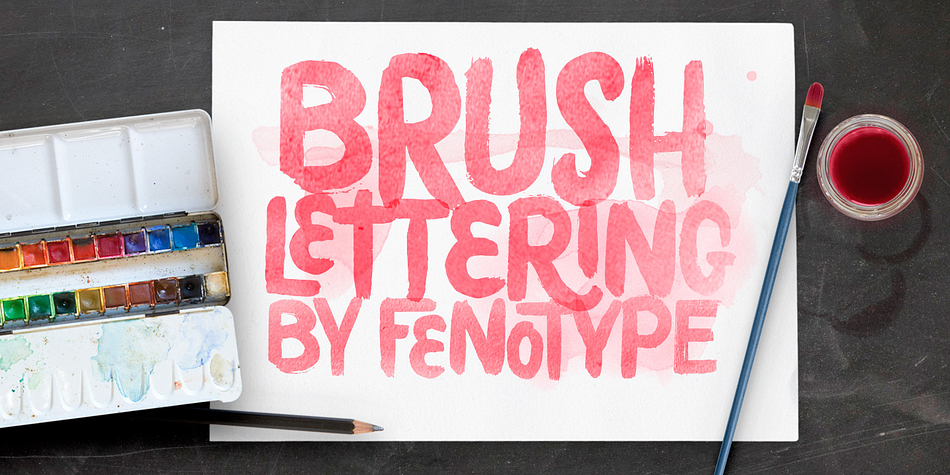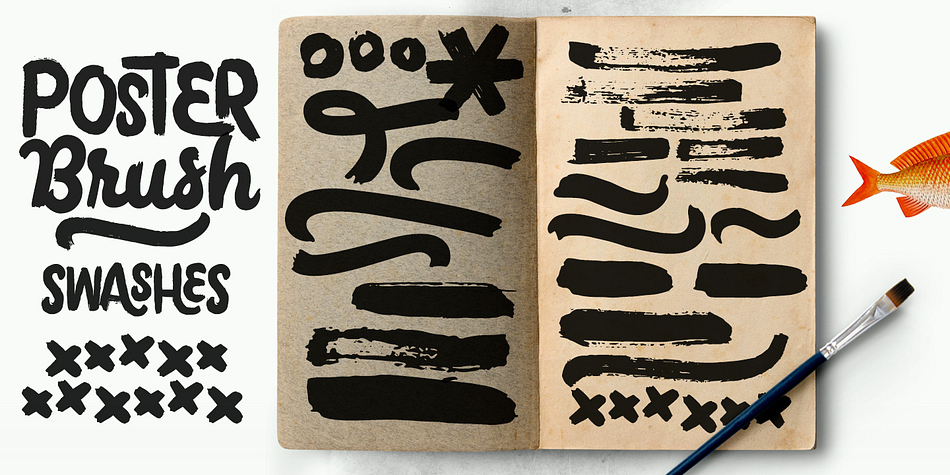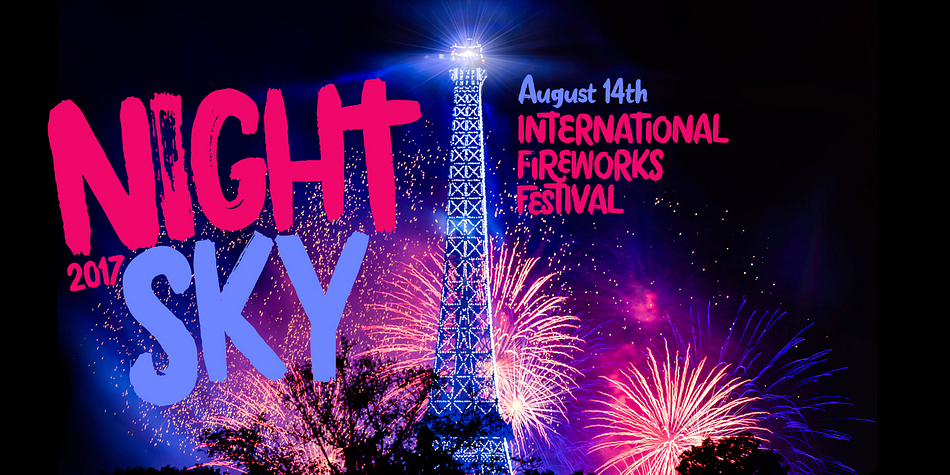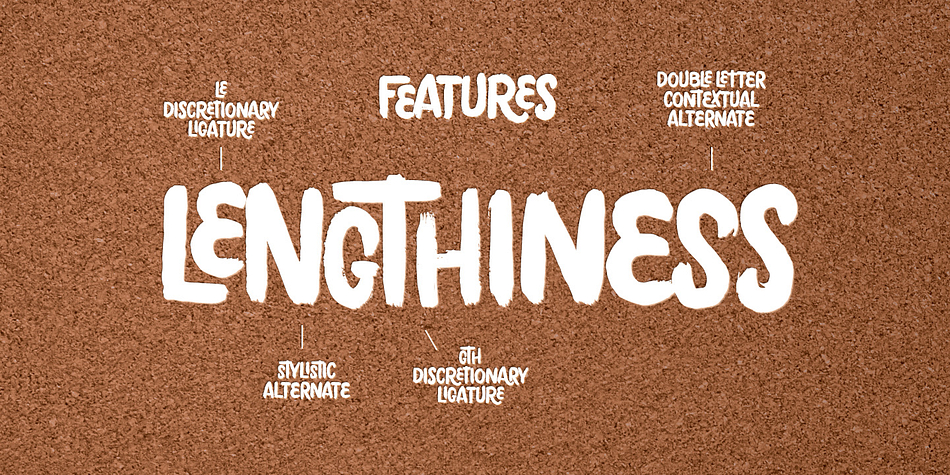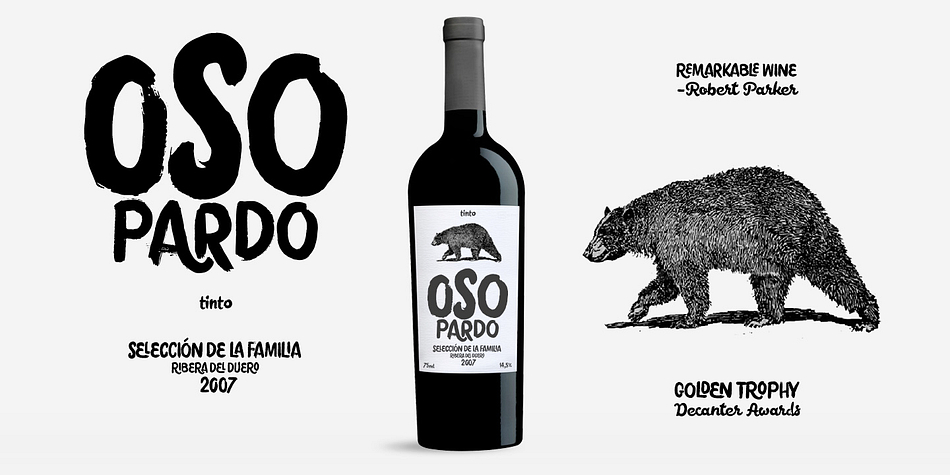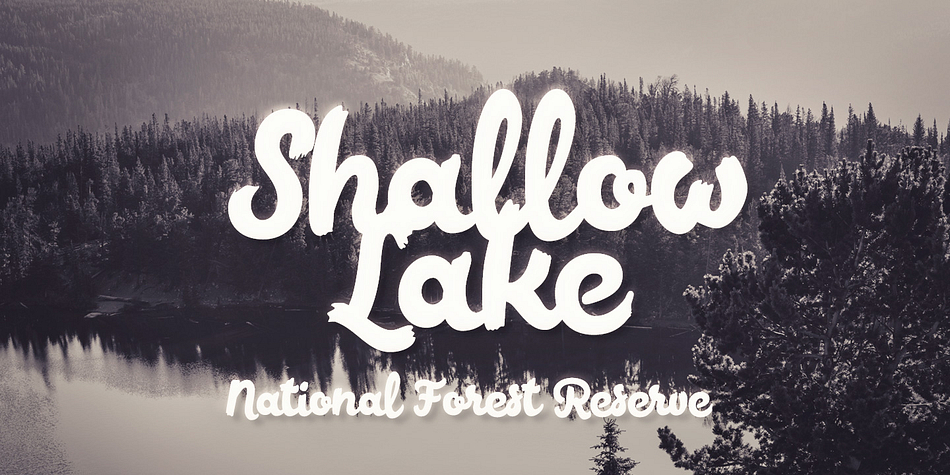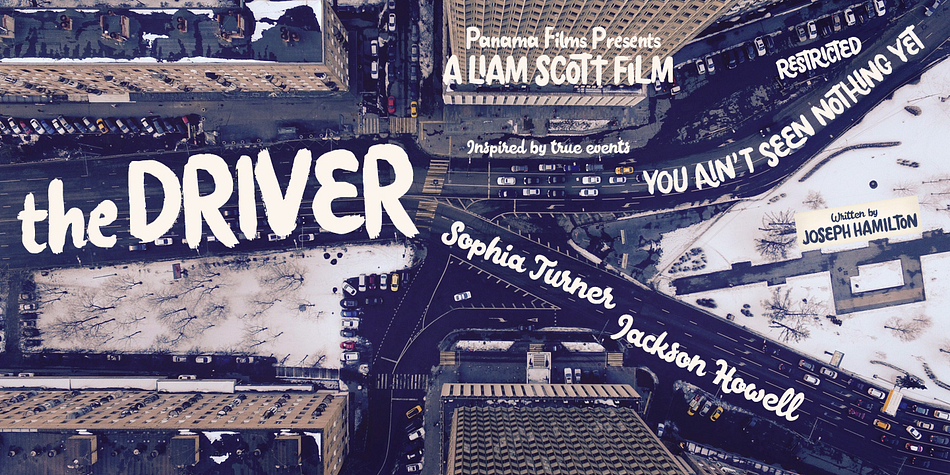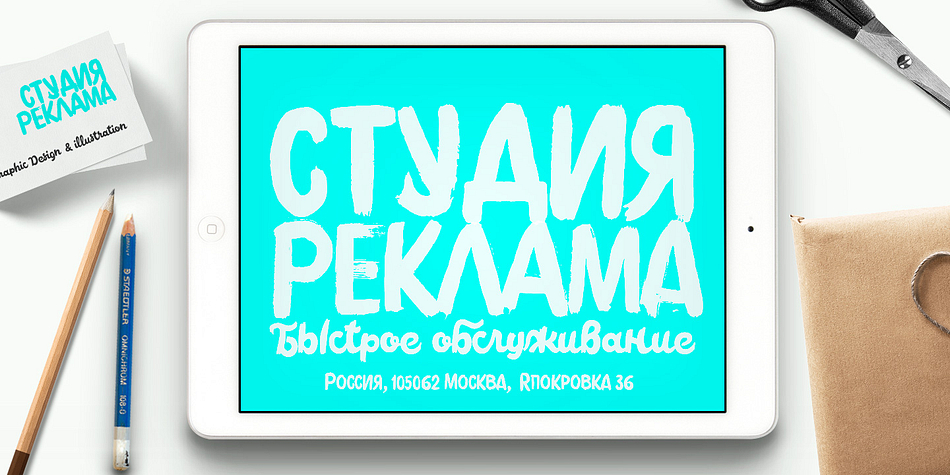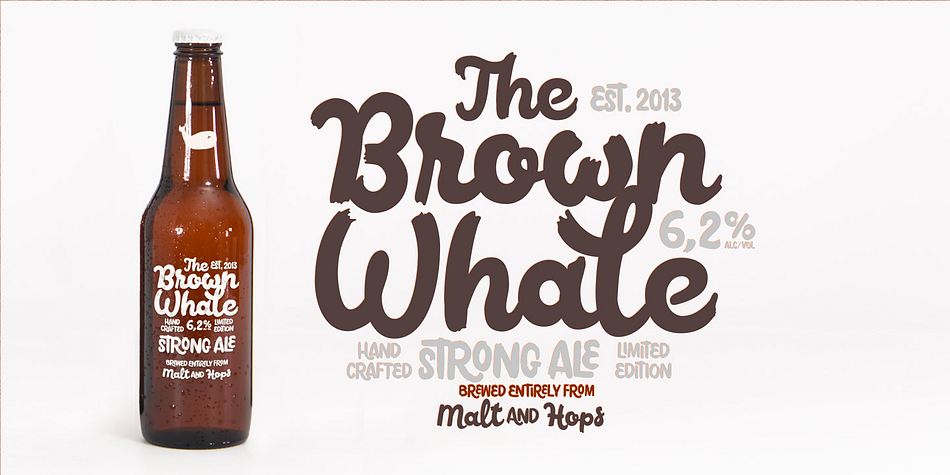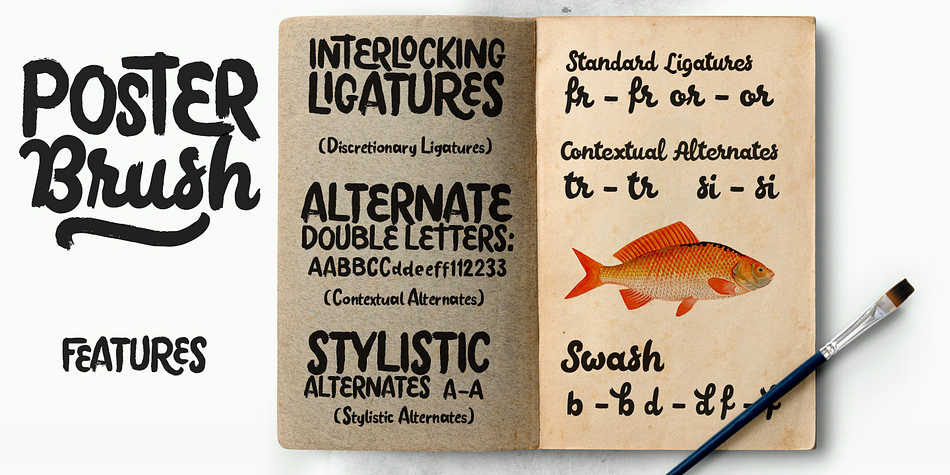
Designed by Emil Karl Bertell, Poster Brush is a dingbat, hand drawn and brush script font family. This typeface has five styles and was published by Fenotype.
Poster Brush is packed with OpenType features - Contextual Alternates changes prevents identical double letters from being next to each other. With Stylistic Alternates you can manually change the letters. When you turn on Discretionary Ligatures you’ll get interlocking ligatures when typing with caps.
Poster Brush Script is equipped with Standard Ligatures and Contextual Alternates to keep the flow smooth. It also has Swash alternates for certain letters.